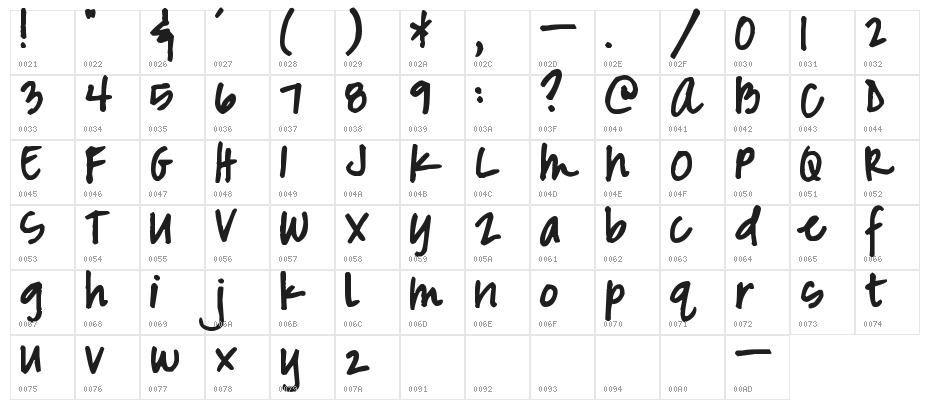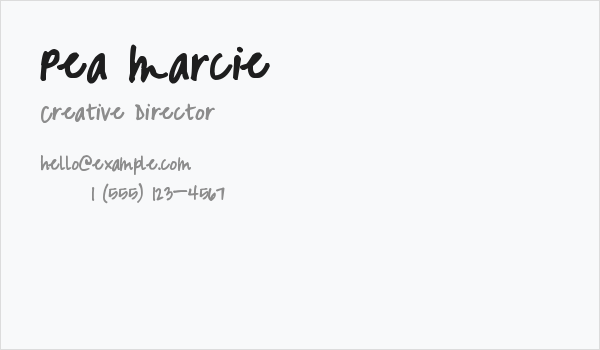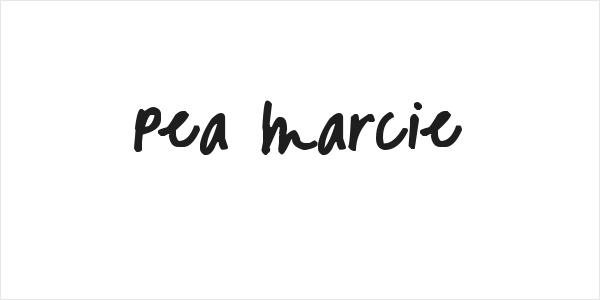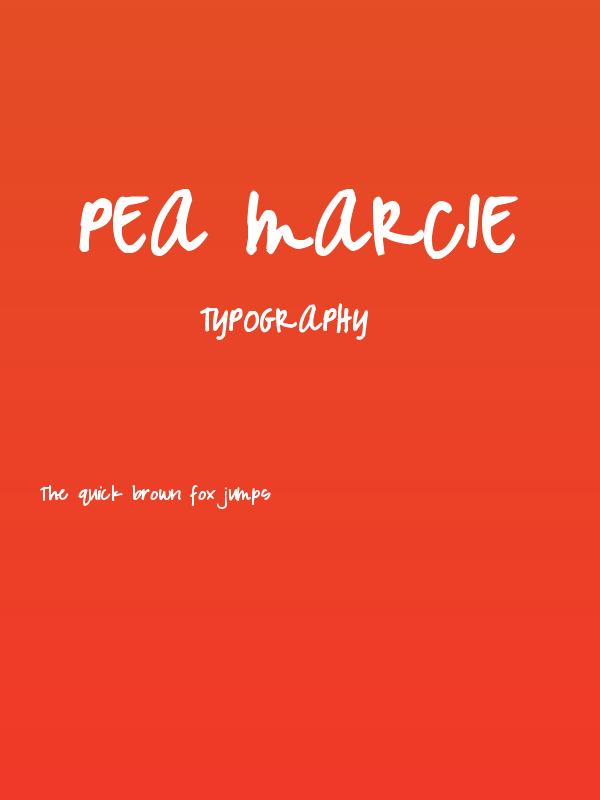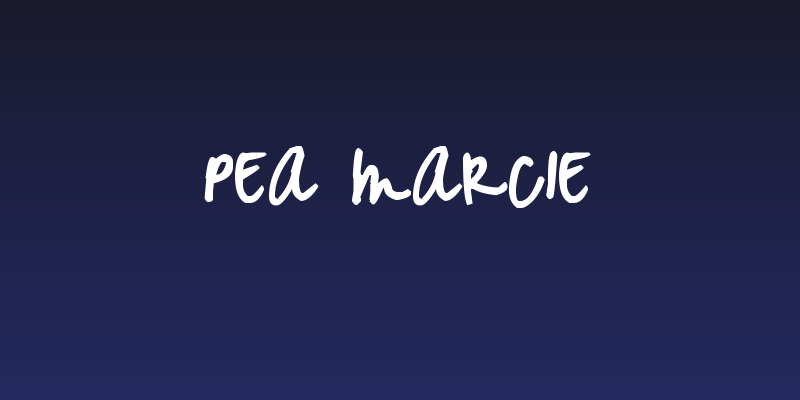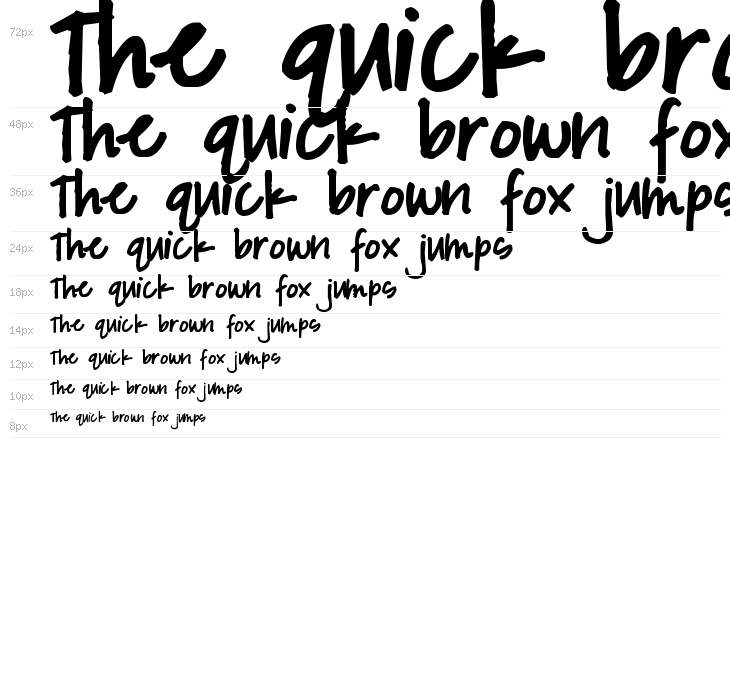
Pea Marcie Font
Pea Marcie Description
This font features a playful and casual handwritten style, characterized by its bold and slightly uneven strokes. The letters have a natural flow, with a slight slant that adds to its informal appearance. The uppercase and lowercase letters maintain a consistent style, with rounded edges and a friendly demeanor. The numerals and special characters complement the alphabet with the same boldness and casual flair. This font is perfect for projects that require a personal touch, such as greeting cards, invitations, or playful branding.
Overall StyleCasual, Playful
Use CaseHeadlines, Logos, Invitations
Proposed ProjectsIdeal for greeting cards, invitations, playful branding, and personal projects.